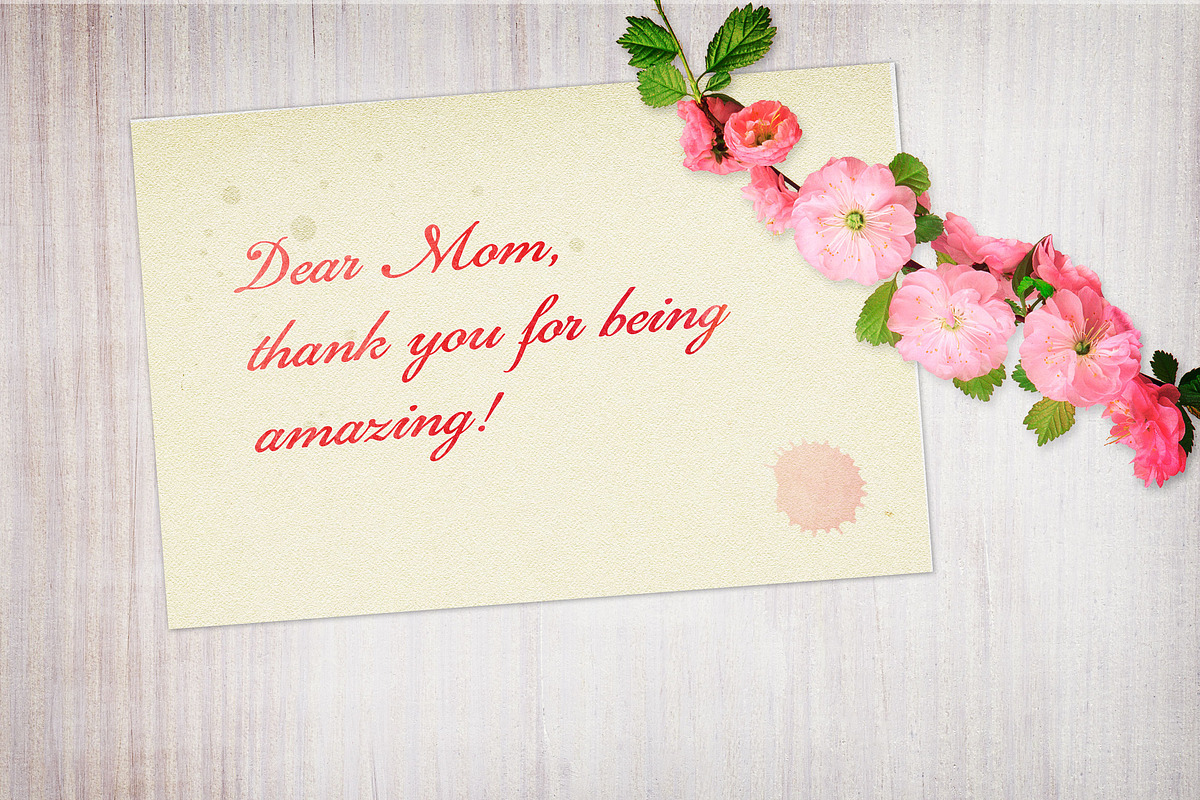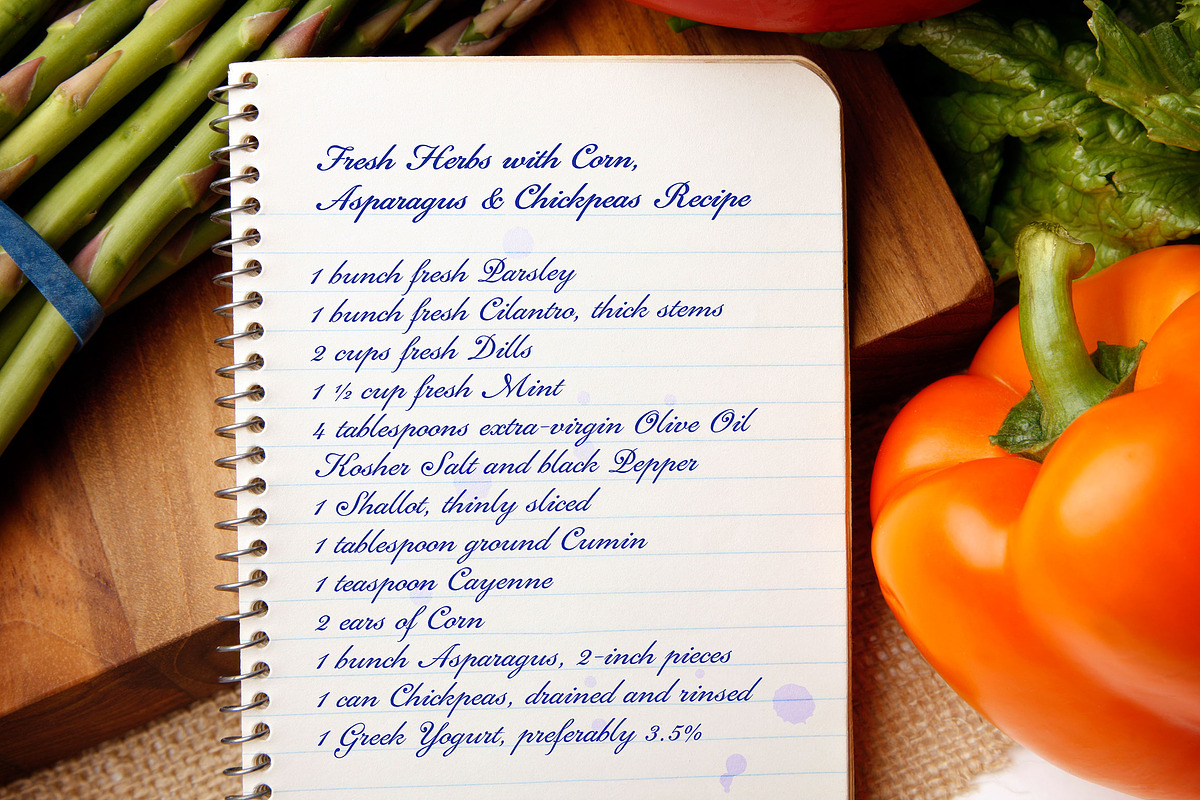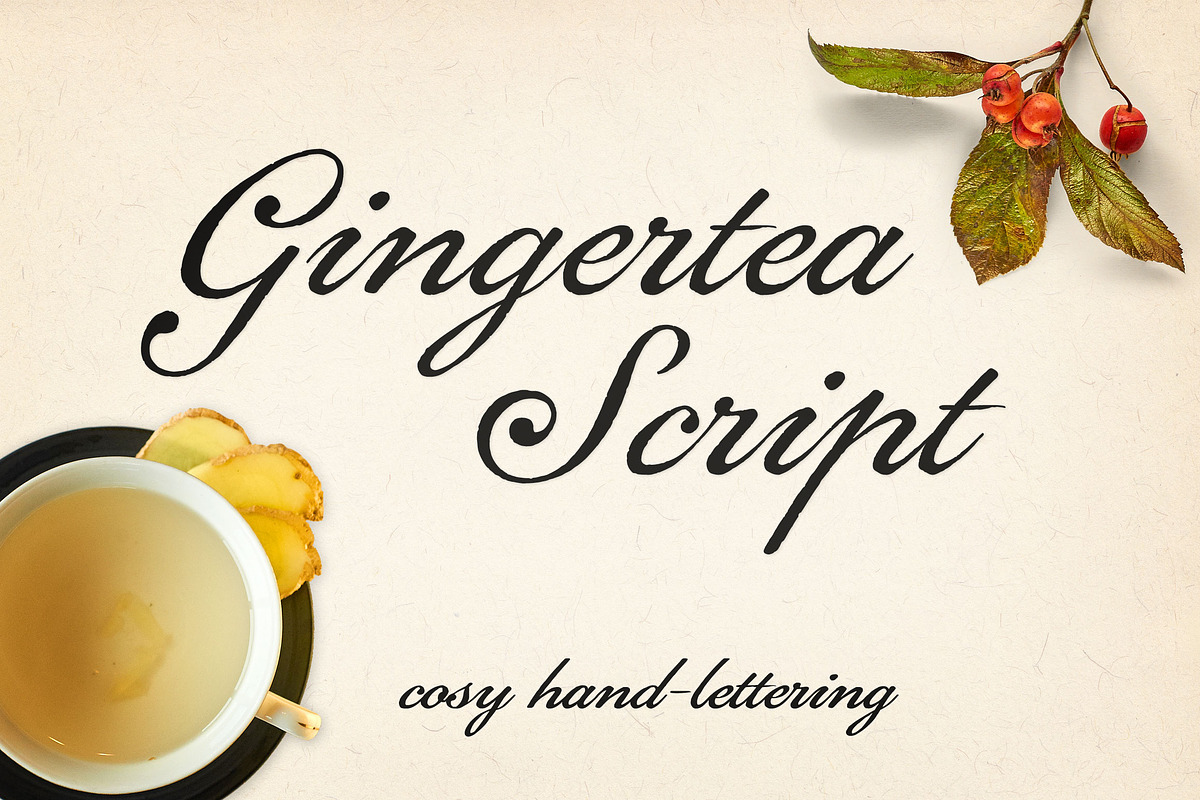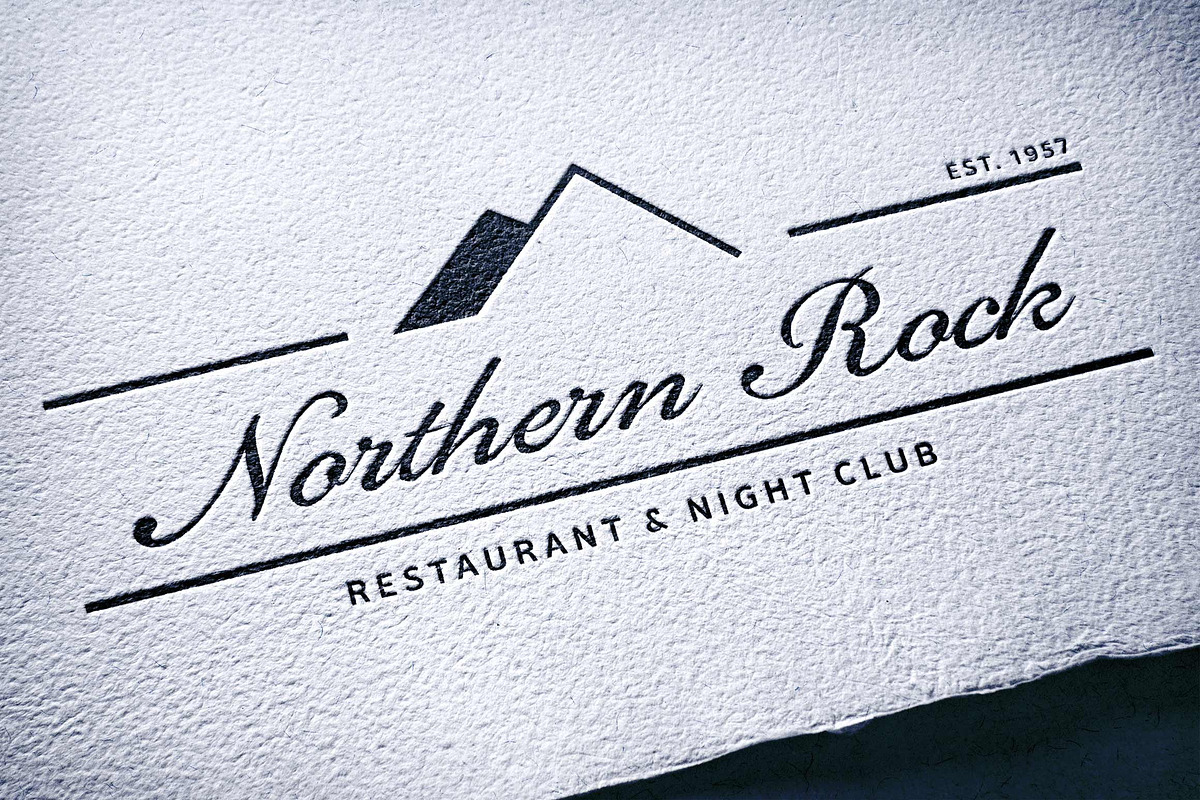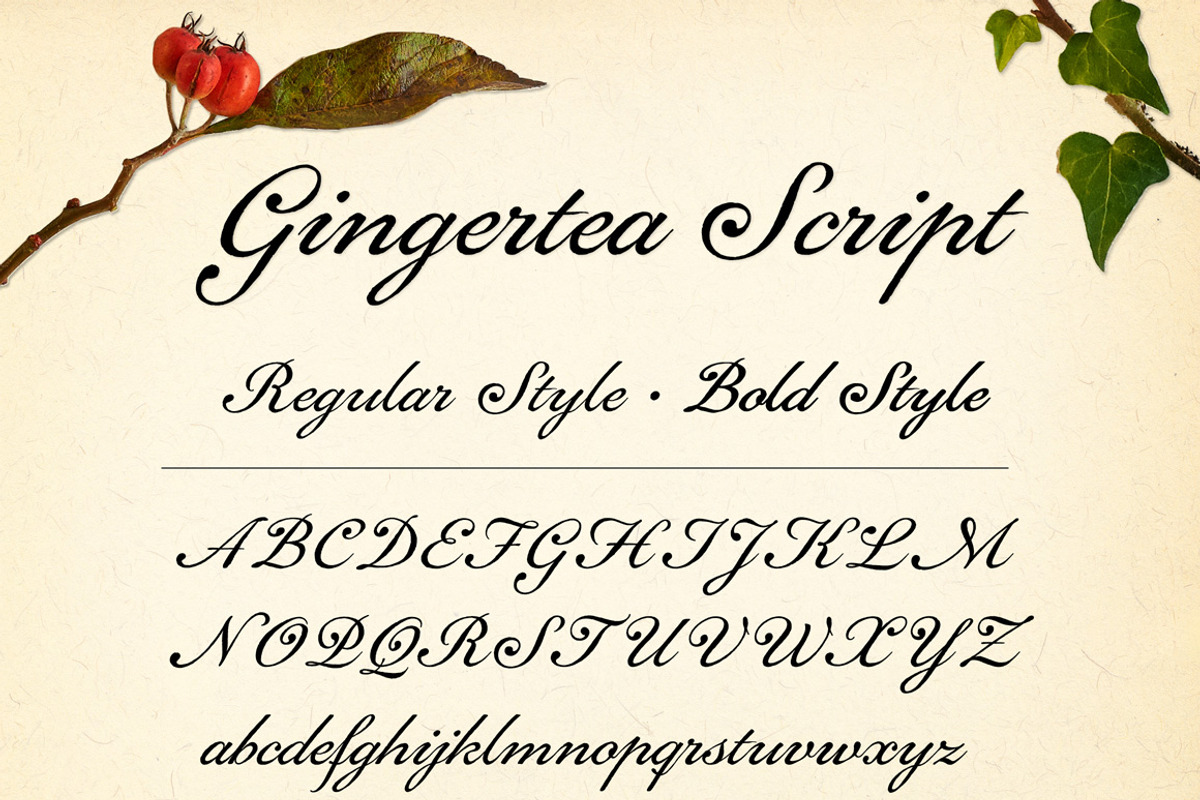
Gingertea Script Font
Gingertea Script Font by Betty Nane is a font selected for branding, posters, packaging, typography.
- Gingertea Script Regular
- Gingertea Script Bold
Why Gingertea Script Font is worth a look
Gingertea Script Font by Betty Nane fits naturally into Branding, posters, packaging, typography.